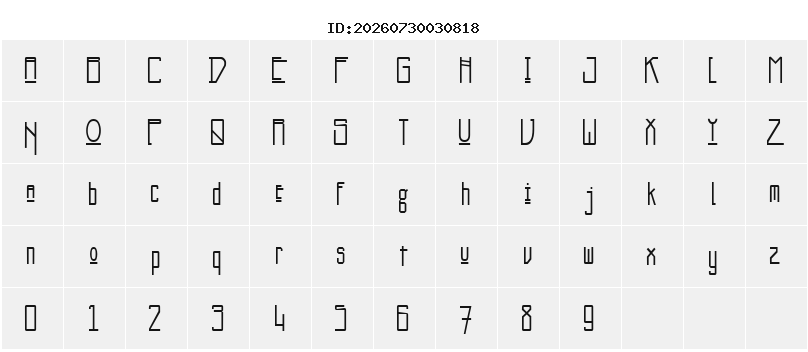
About Kashmir.ttf
Kashmir.ttf is a modern, elegant sans-serif font designed for ultimate readability and visual harmony. Perfect for branding, headlines, web design, and print materials.